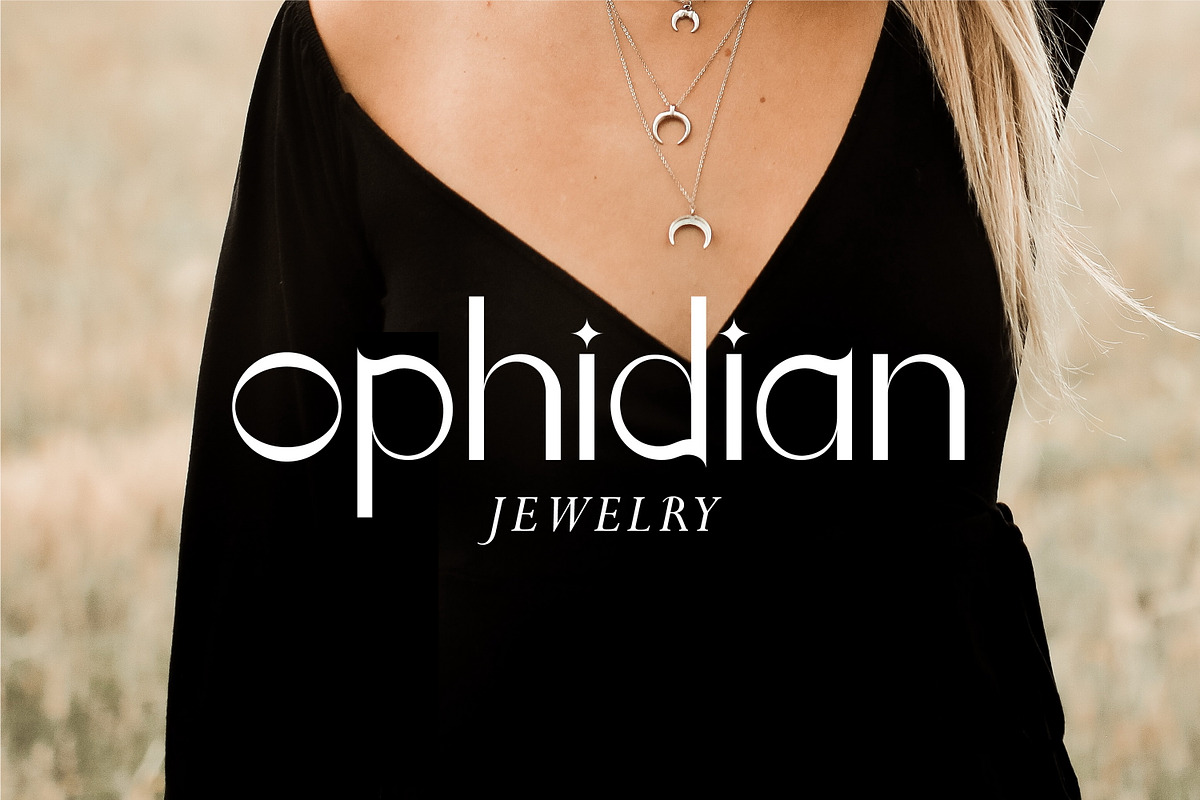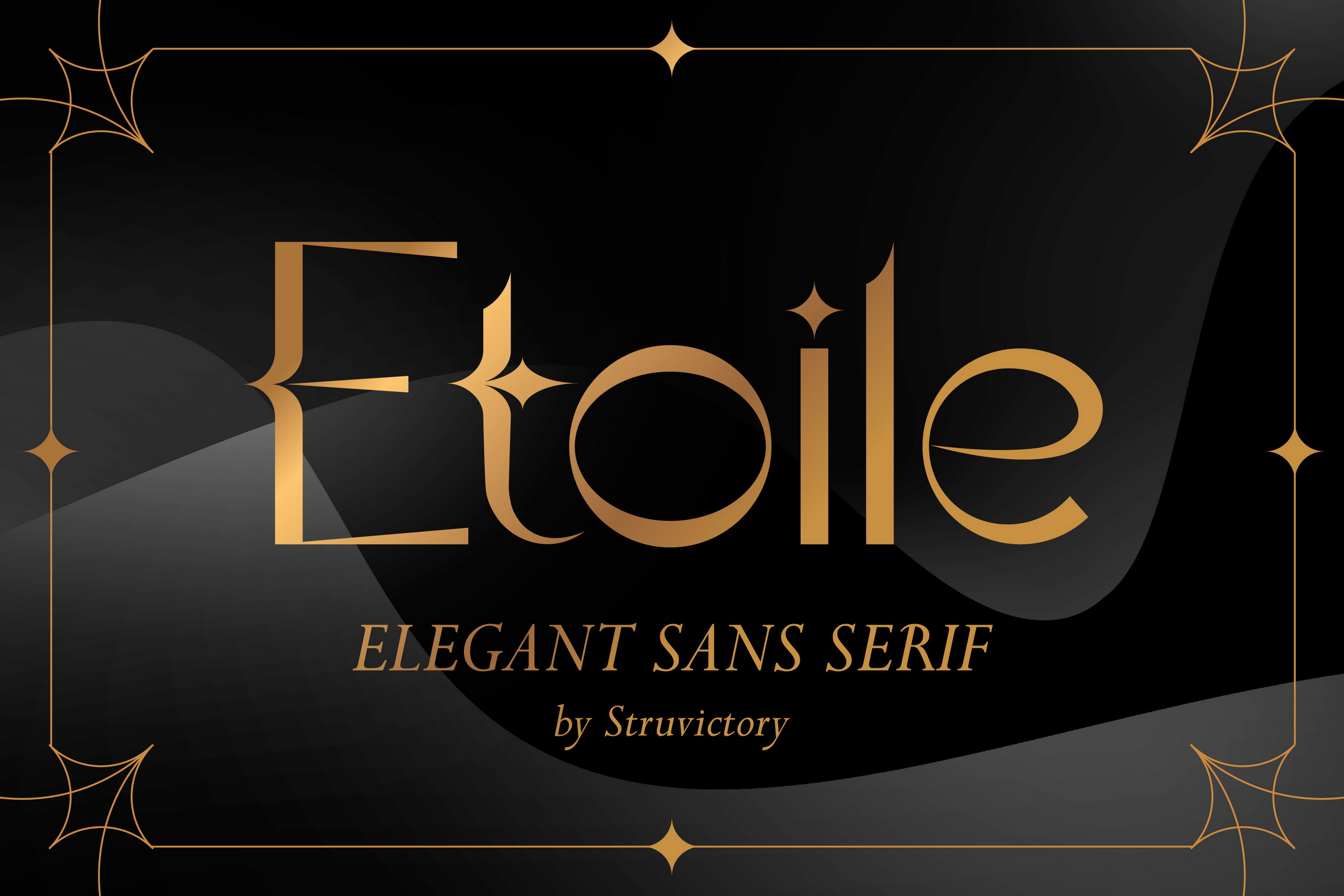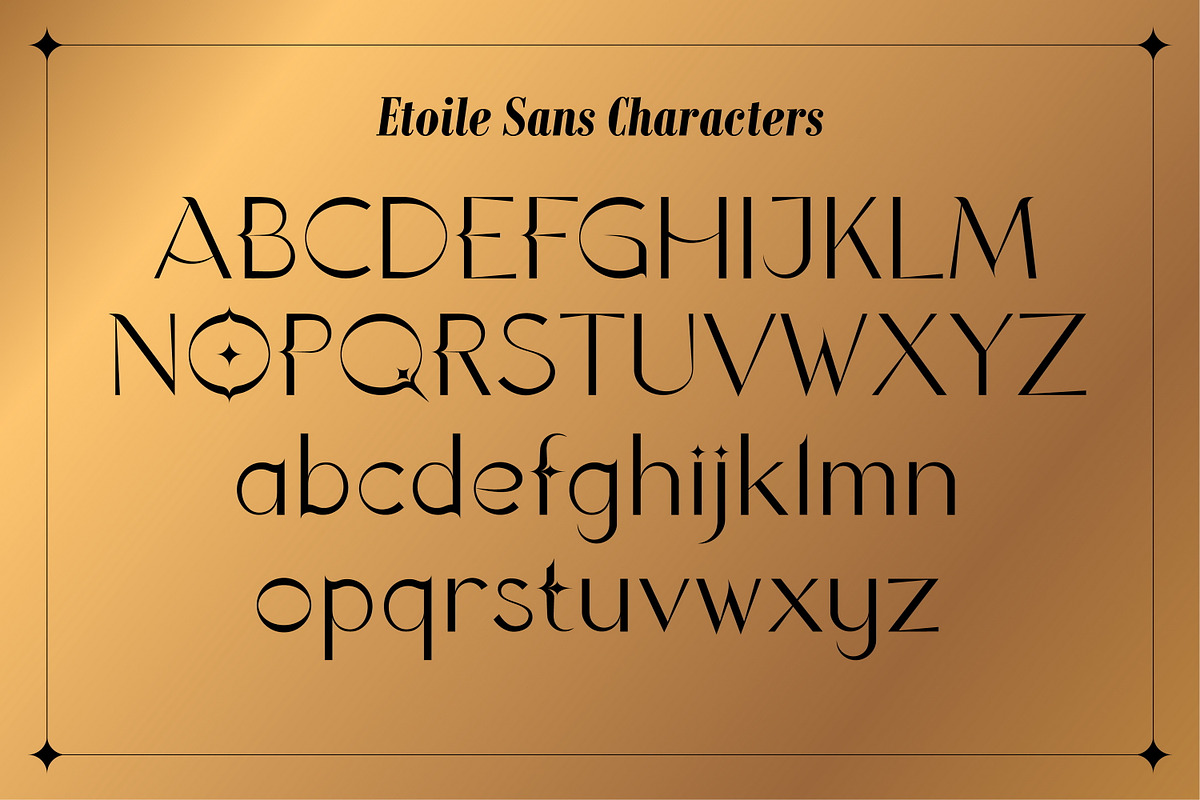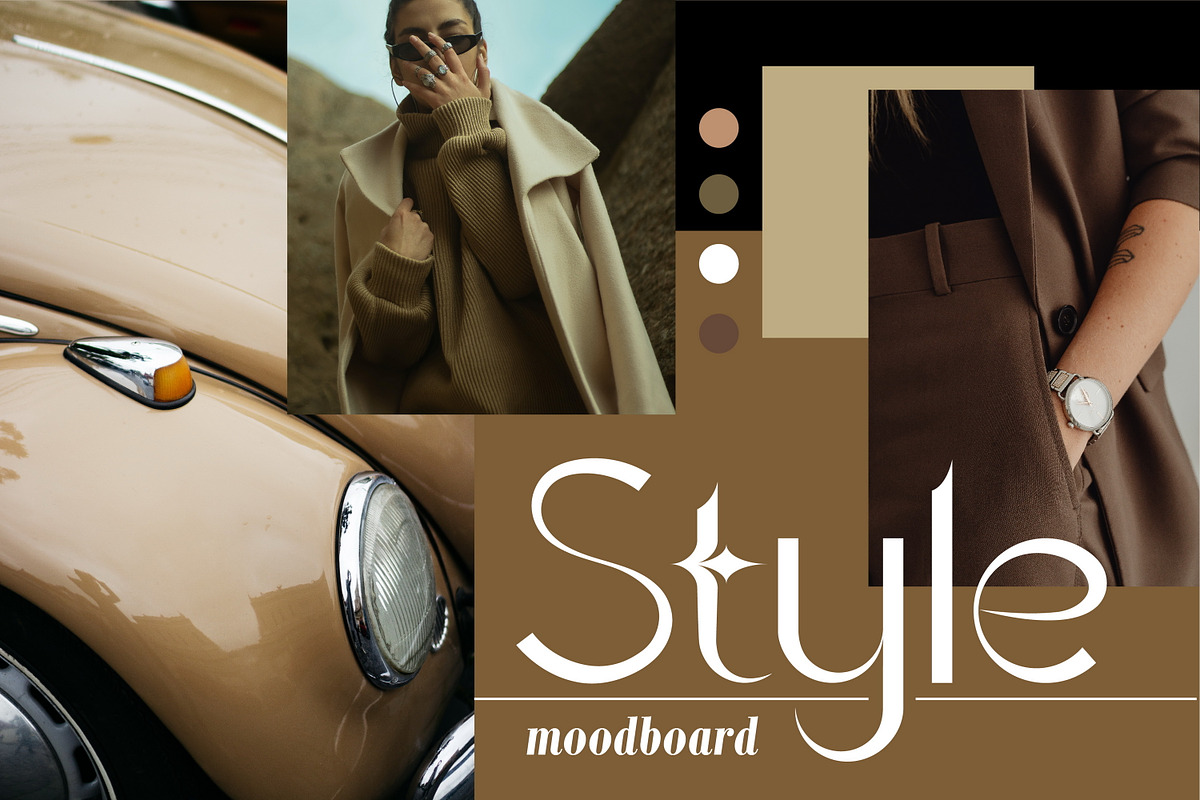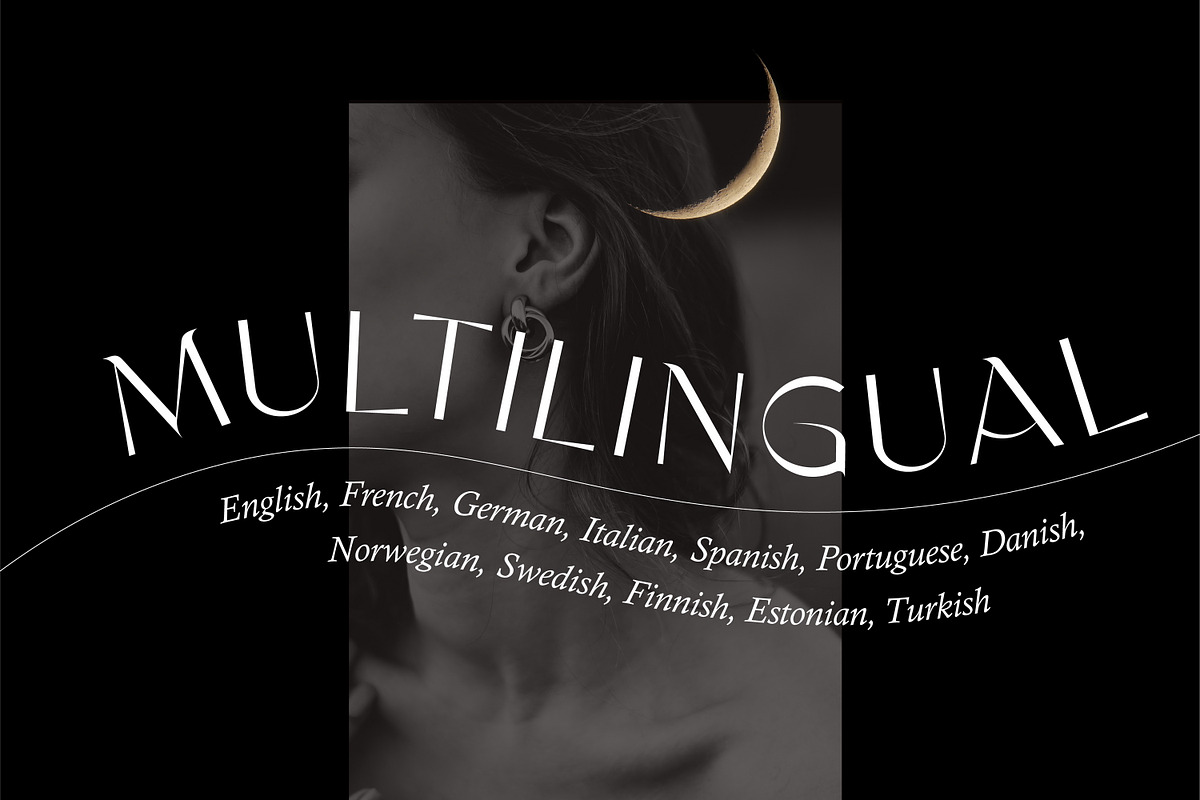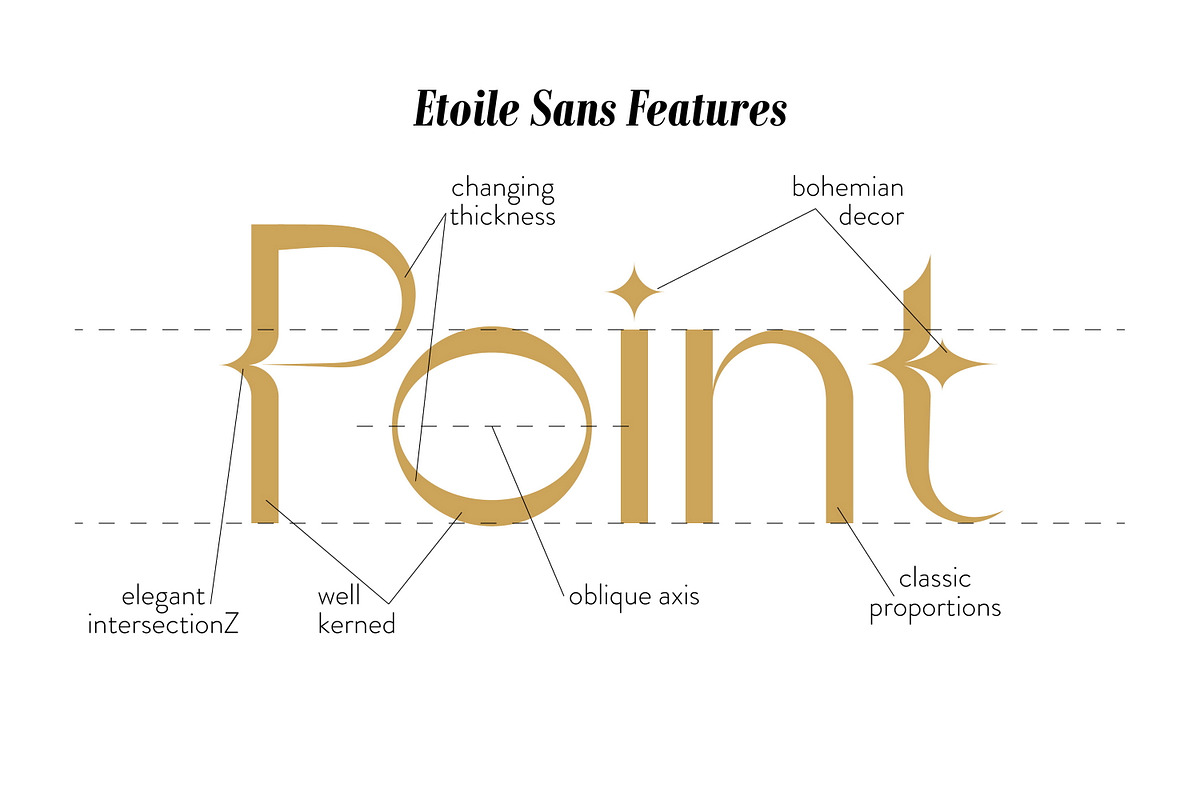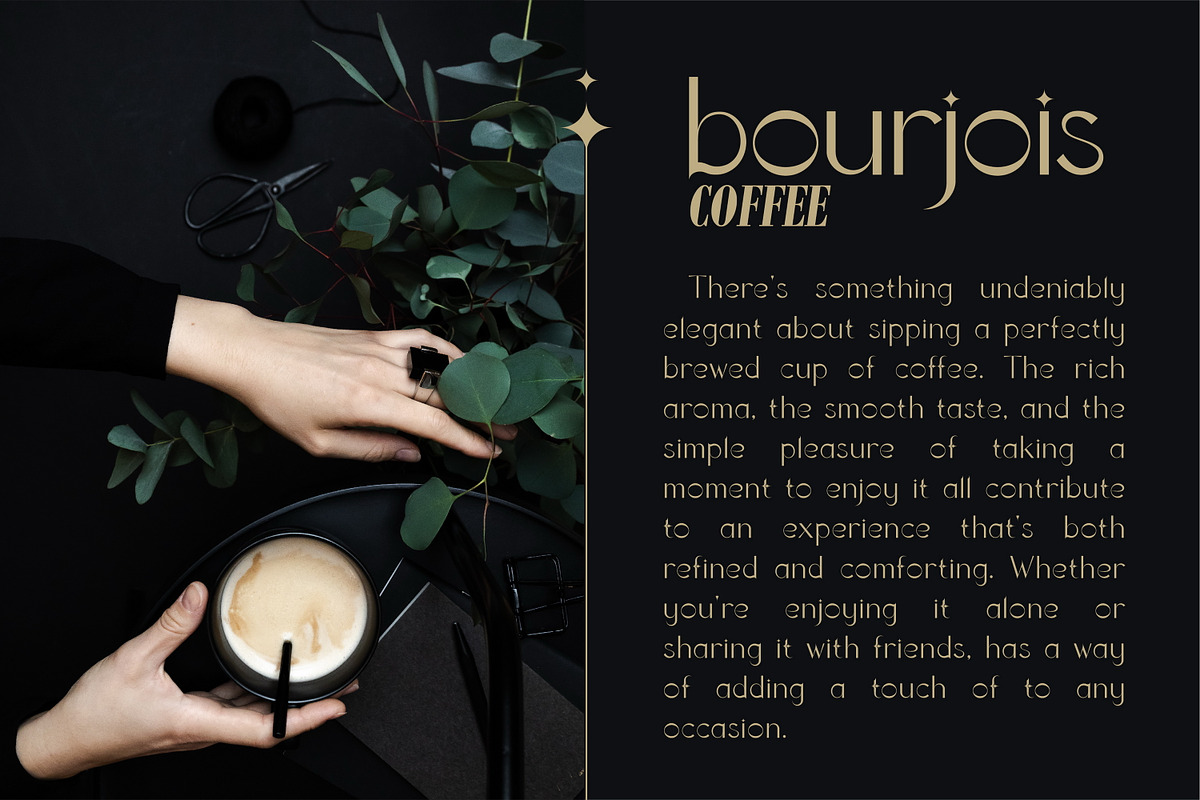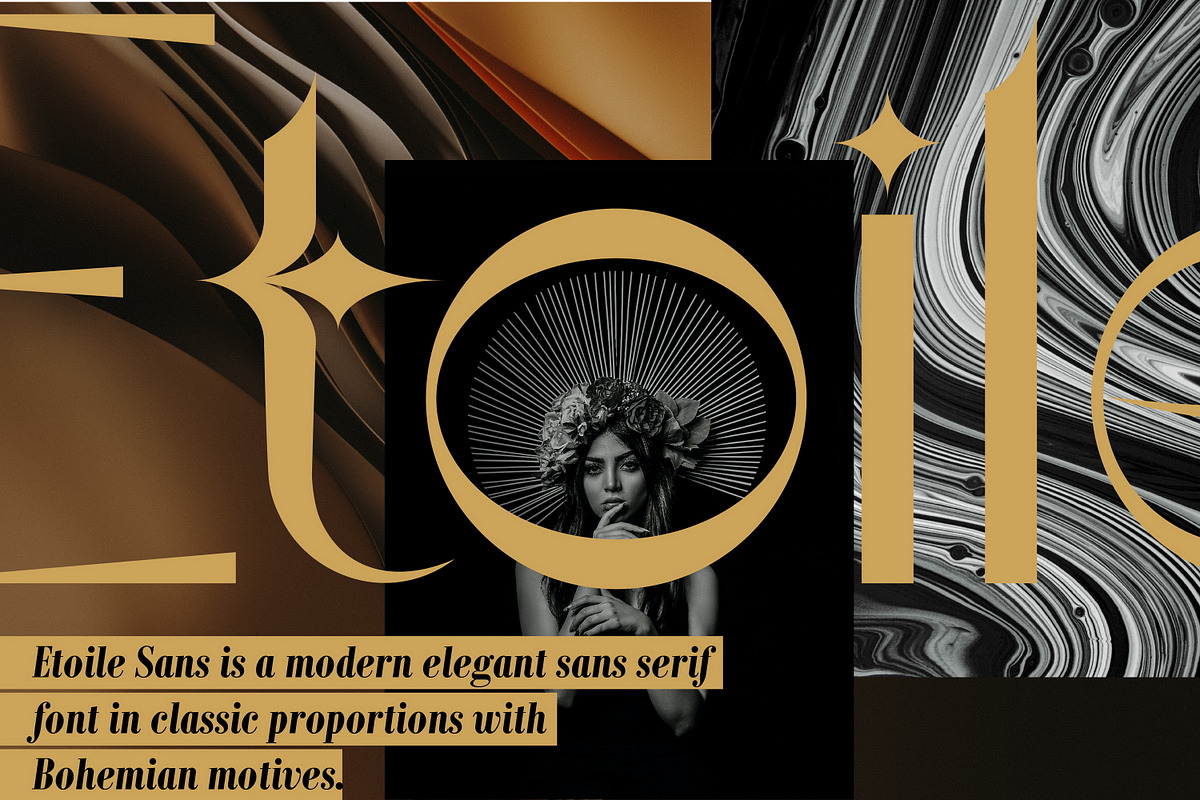
Etoile - Elegant Sans Serif Font
Etoile is a modern sans serif font with bohemian motives. The font is created in classic proportions and decorated with elegant decor. The font is suitable for the design on the theme of mysticism, esotericism, fashion and style.
Etoile has extensive language support, it includes English, French, German, Italian, Spanish, Portuguese, Danish, Norwegian, Swedish, Finnish, Estonian, Turkish. Need to know if your language is supported? Type any words in the text box below and see if all characters you need are there.